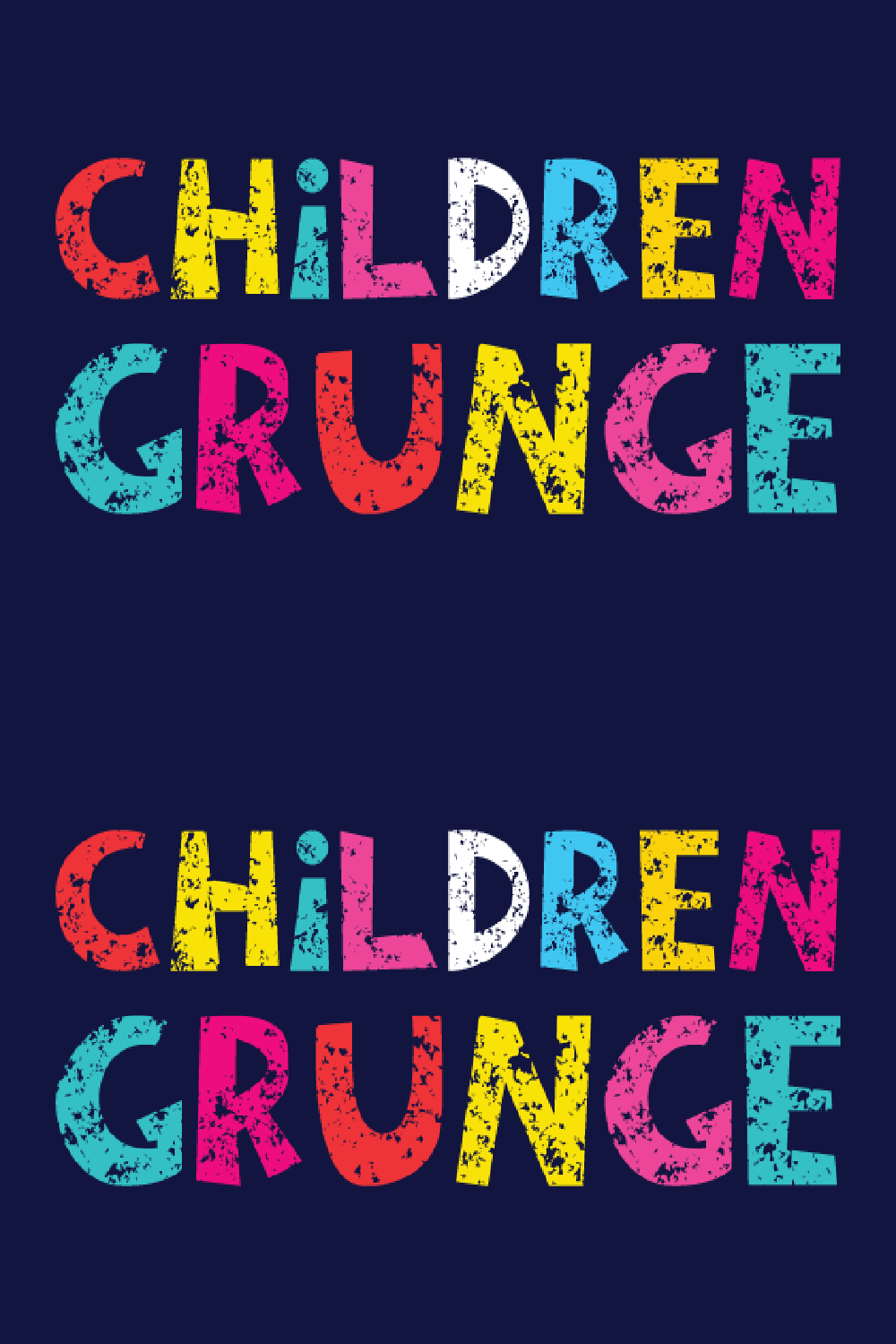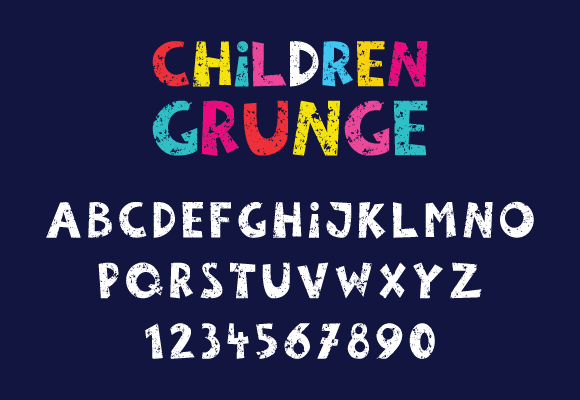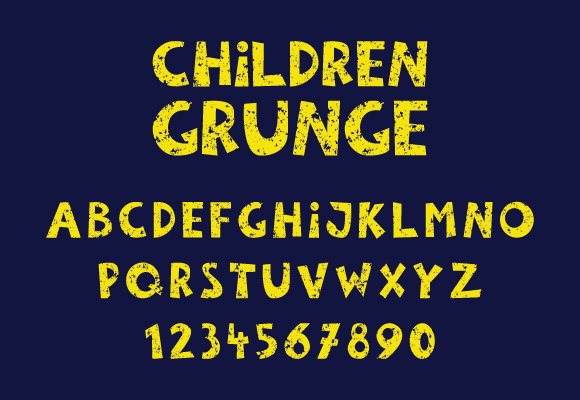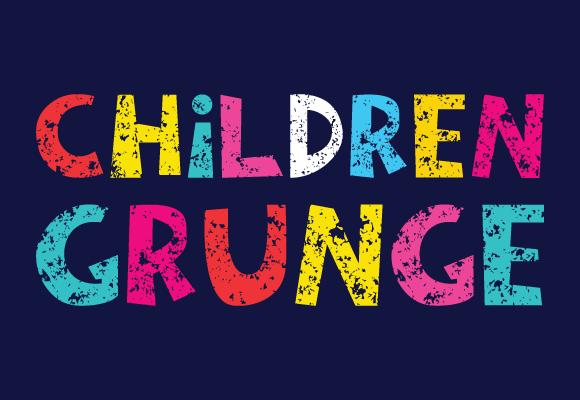
Children Grunge Font
About the Children Grunge Font
Add a touch of class to your work with the Children Grunge Font, a truly exceptional typeface. Children Grunge Font is a typeface designed with a playful and childlike aesthetic. It features a set of whimsical, cheerful characters, often reminiscent of like handwritten letters or doodles made for children. You can use this font for any kid’s projects proudly.
Children Grunge Font Usage Examples